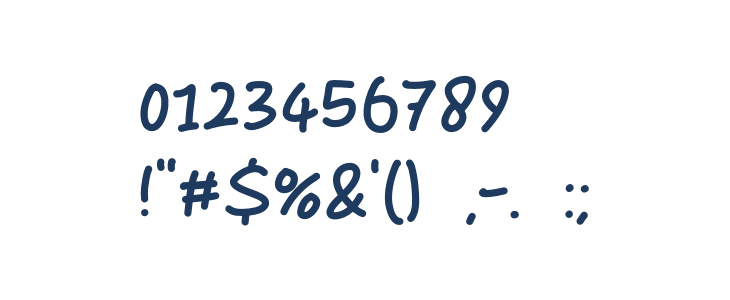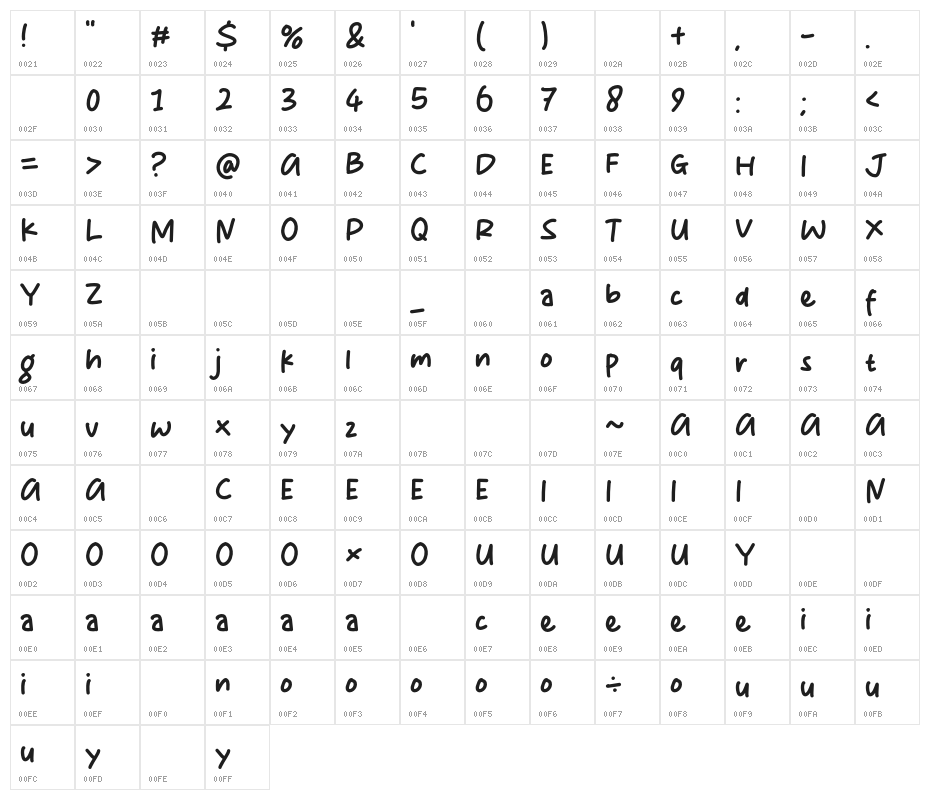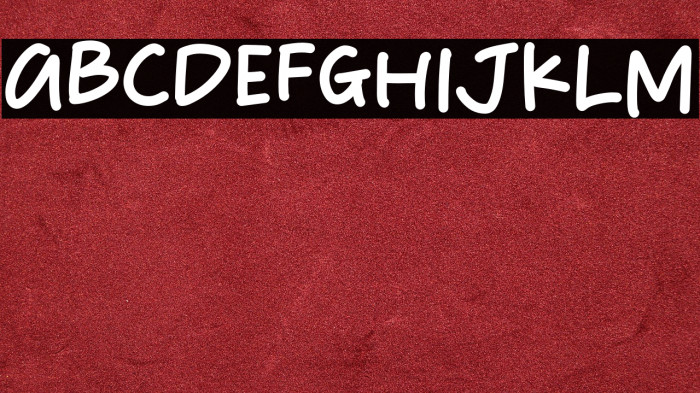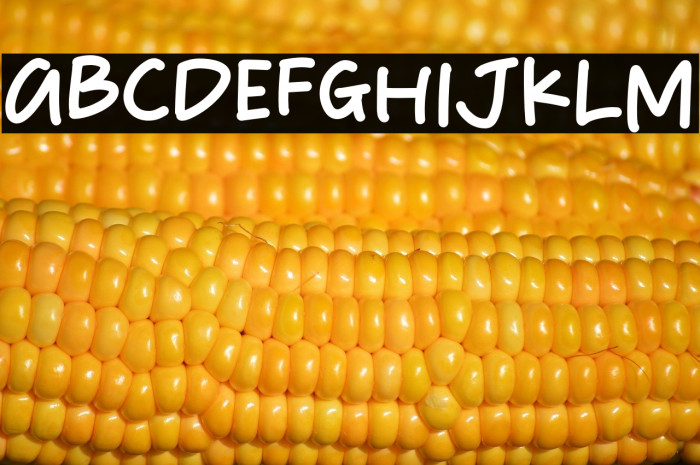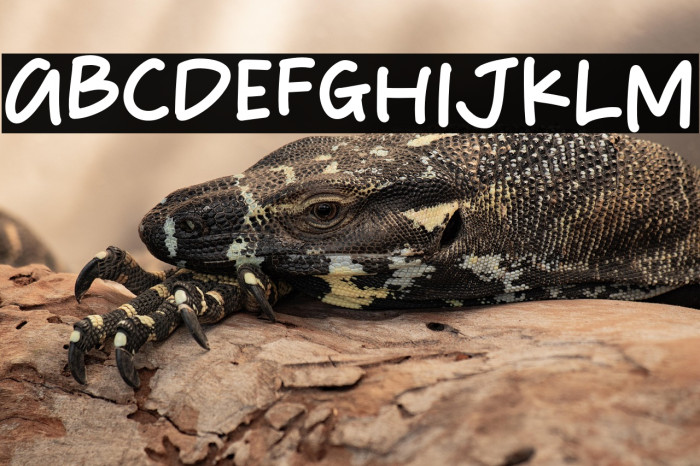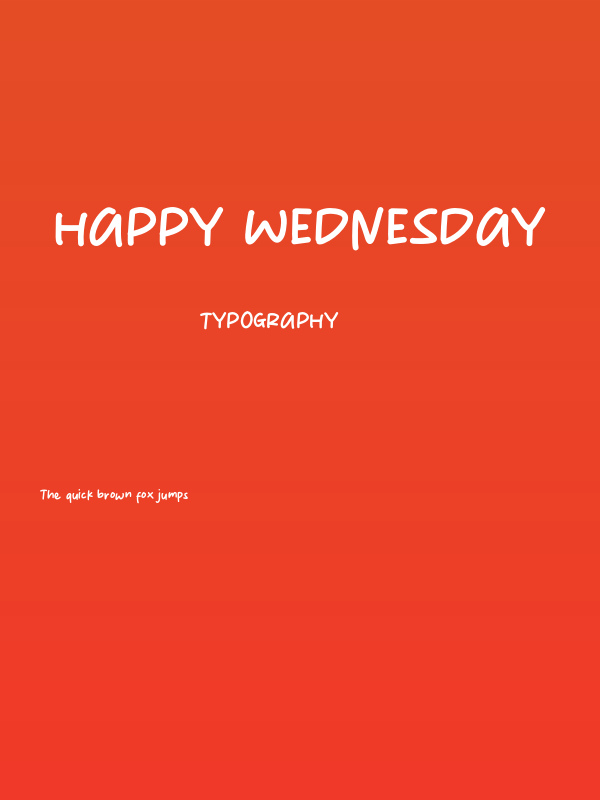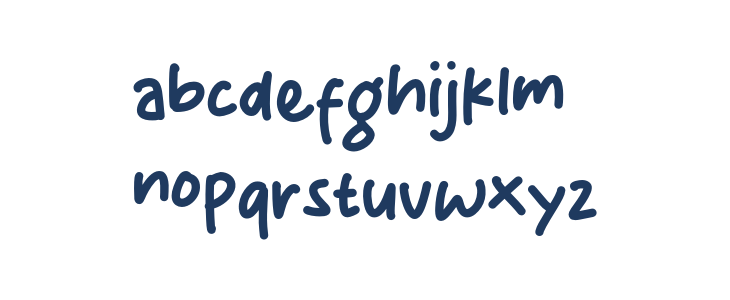
Happy Wednesday Font
Happy Wednesday Description
This font exudes a playful and informal style, characterized by its handwritten appearance. The letters are rounded and slightly irregular, giving it a casual and friendly vibe. The strokes are consistent in thickness, contributing to a cohesive look. The uppercase and lowercase letters maintain a harmonious balance, while the numerals and special characters are designed to match the overall aesthetic. This font is ideal for projects that require a personal touch, such as greeting cards, invitations, or children's book illustrations.
| Proposed Projects | Ideal for greeting cards, invitations, children's books, and casual branding. |